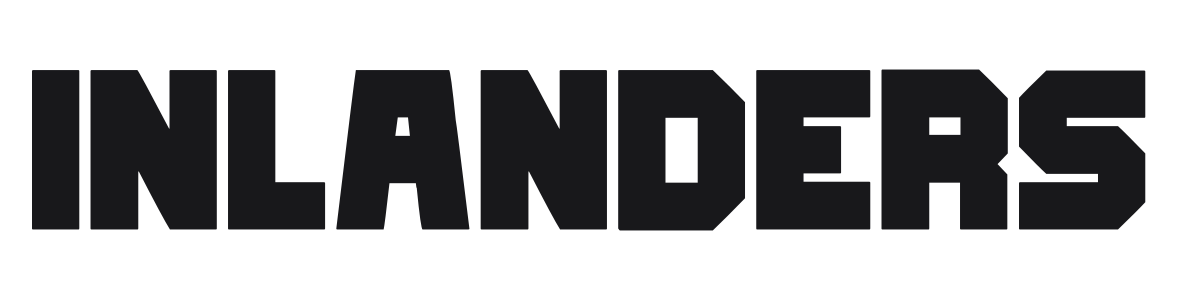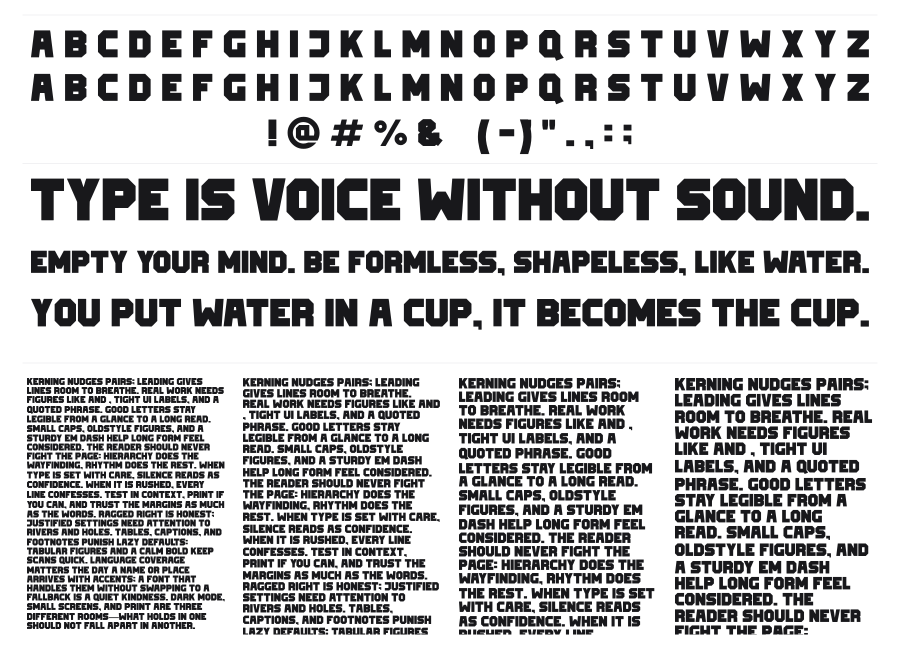
Inlanders
Inlanders is a heavy condensed display sans with bold rectangular construction and distinctive angled notch cuts at stroke joints. Those faceted details give it a rugged, almost military character that sits somewhere between a classic sports font and an adventure logo. Works best at large sizes where the notching reads clearly.